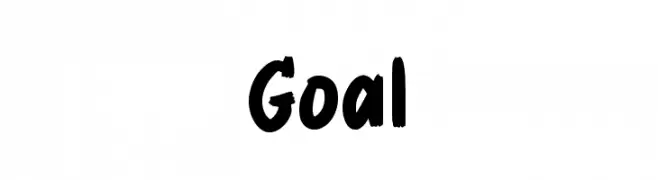
A bold, cursive font with elegant, flowing strokes.
A sophisticated, fluid script font with elegant, flowing lines.
A bold, handwritten font with smooth, flowing curves and a casual, friendly appearance.
An ornate and decorative font with elaborate swirls and embellishments.
A refined and elegant font with clean lines and balanced proportions.
A bold serif font with a classic and authoritative style.
An elegant serif font with an italic slant and moderate stroke contrast.
A classic serif font with semi-bold weight and moderate contrast, ideal for versatile applications.
A bold, italic serif font with dynamic and elegant features.
A refined, light italic serif font with a modern and elegant style.
A modern serif typeface with elegant lines and balanced proportions.
A semi-bold italic serif font with a modern and elegant style.
A modern serif font with medium weight and elegant, balanced proportions.
An elegant serif font with an italic slant and medium weight, perfect for sophisticated designs.
A bold, modern font with thick, uniform strokes for strong visual impact.
A bold, rounded font with a strong, playful presence.
A bold, high-contrast serif font with dynamic, elegant strokes.
An artistic, calligraphic font with elegant curves and sharp edges.
A bold, condensed font with strong vertical emphasis and modern appeal.
A whimsical and bold font with playful curves and decorative elements.
A bold, 3D italic font with a dynamic and playful style.
A bold, condensed font with a modern yet vintage style, perfect for impactful headlines.
A bold, 3D geometric font with a modern and impactful style.
A bold, geometric font ideal for impactful headlines.
A bold, impactful typeface with a strong, geometric style.
A bold, italicized font with a dynamic and modern style.
A playful, whimsical font with tall, narrow characters and medium contrast.